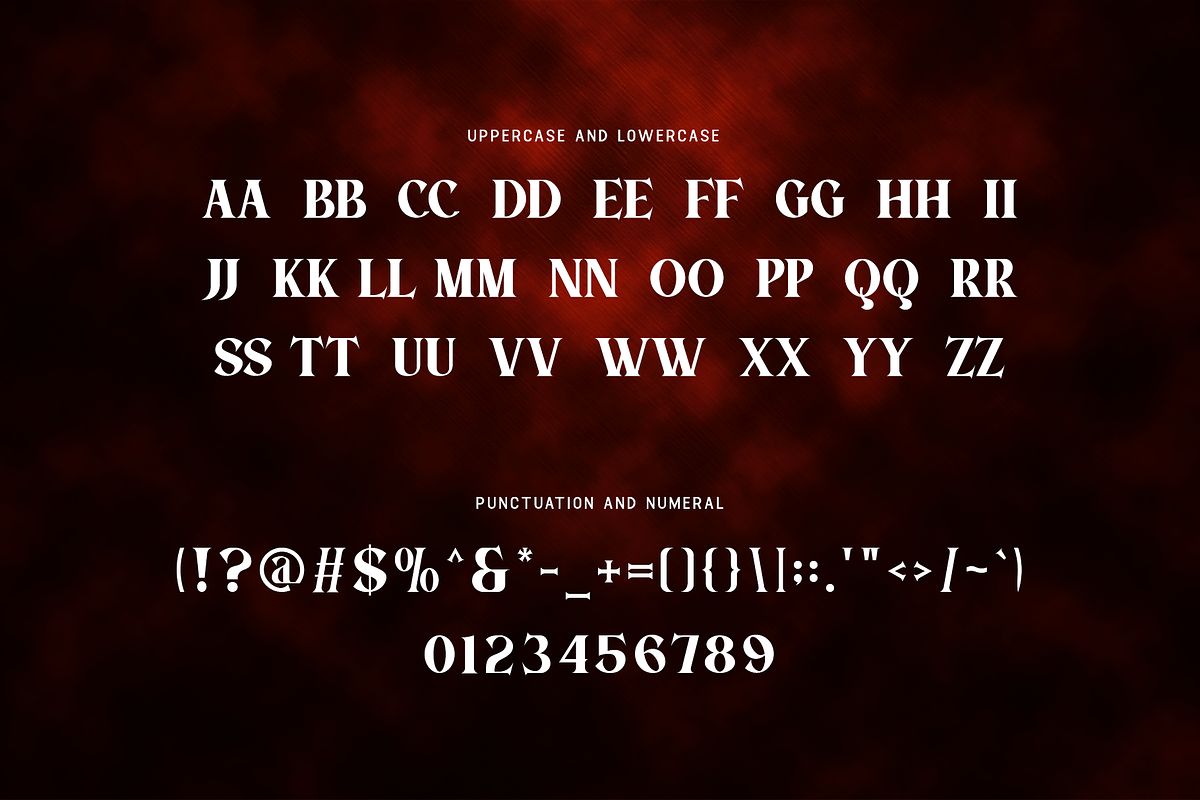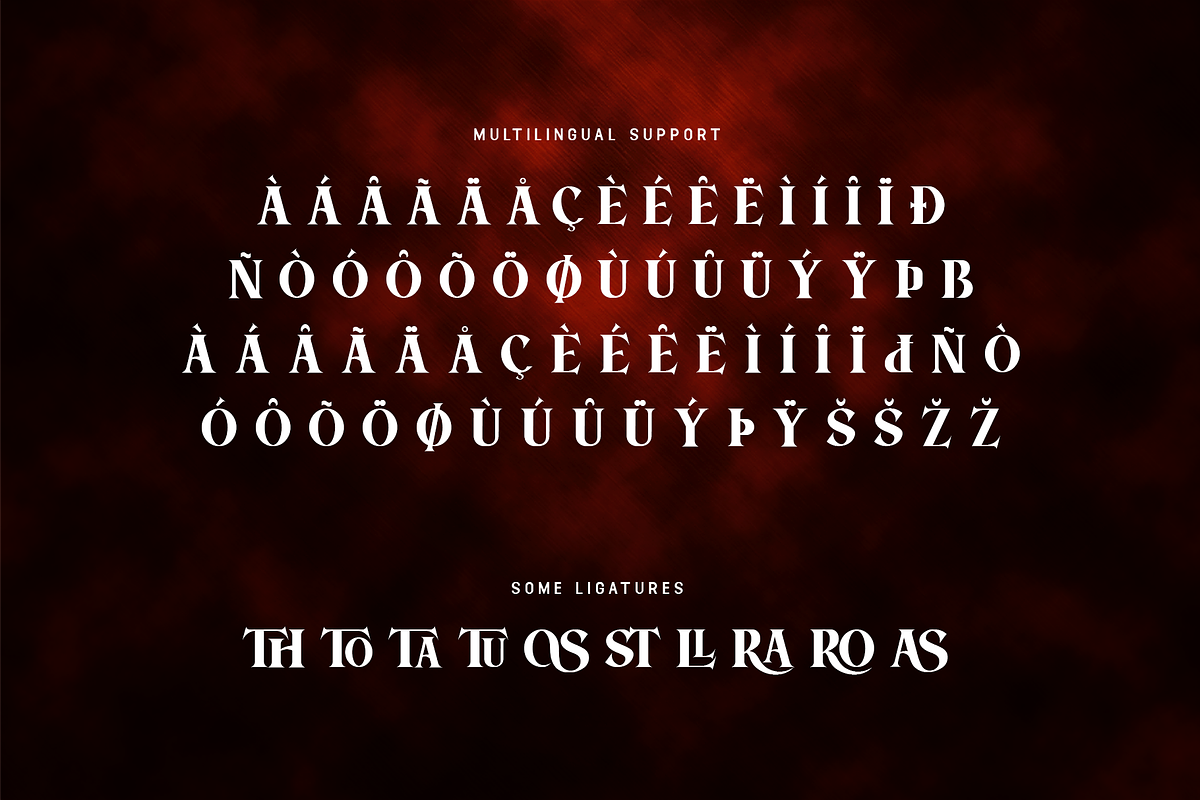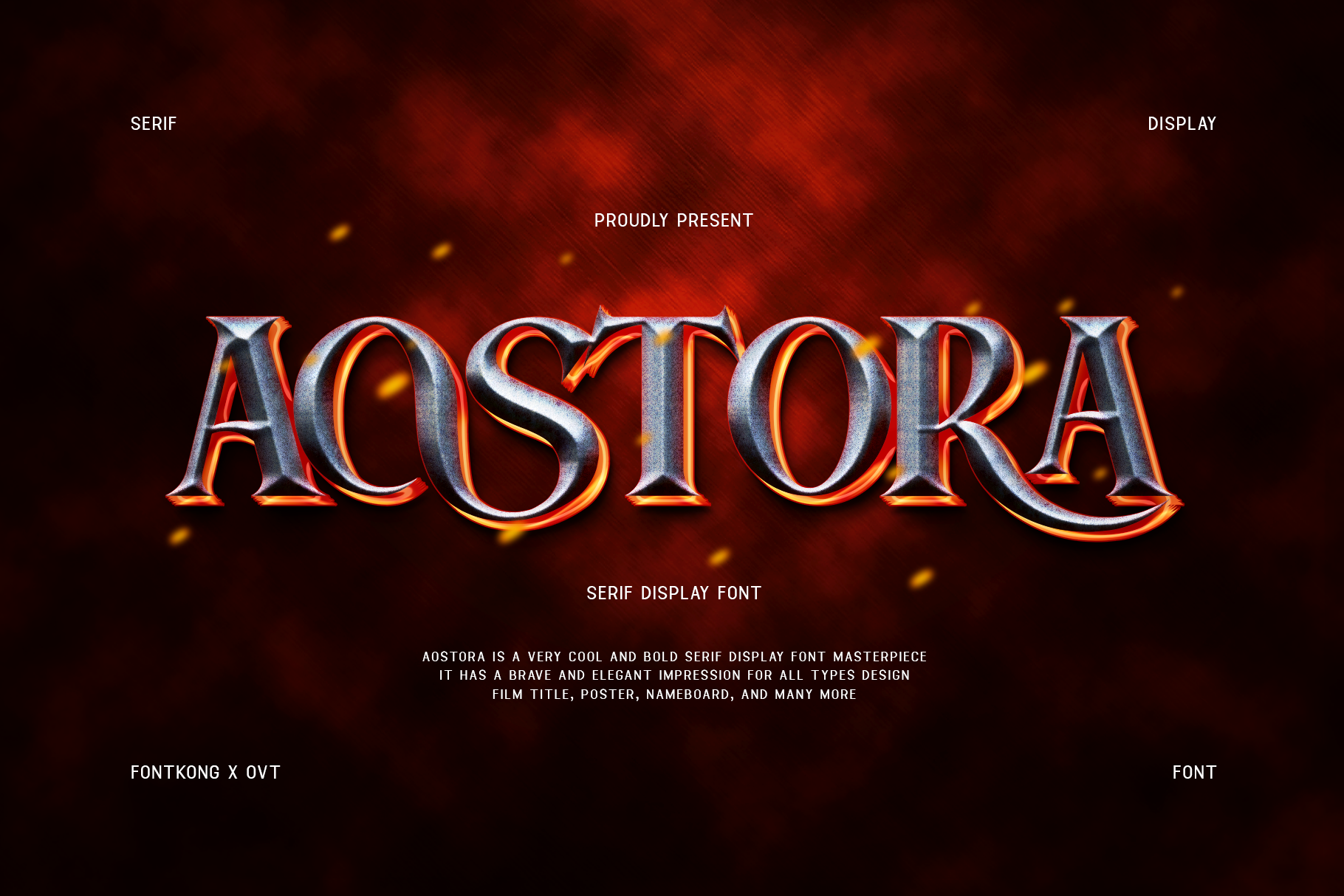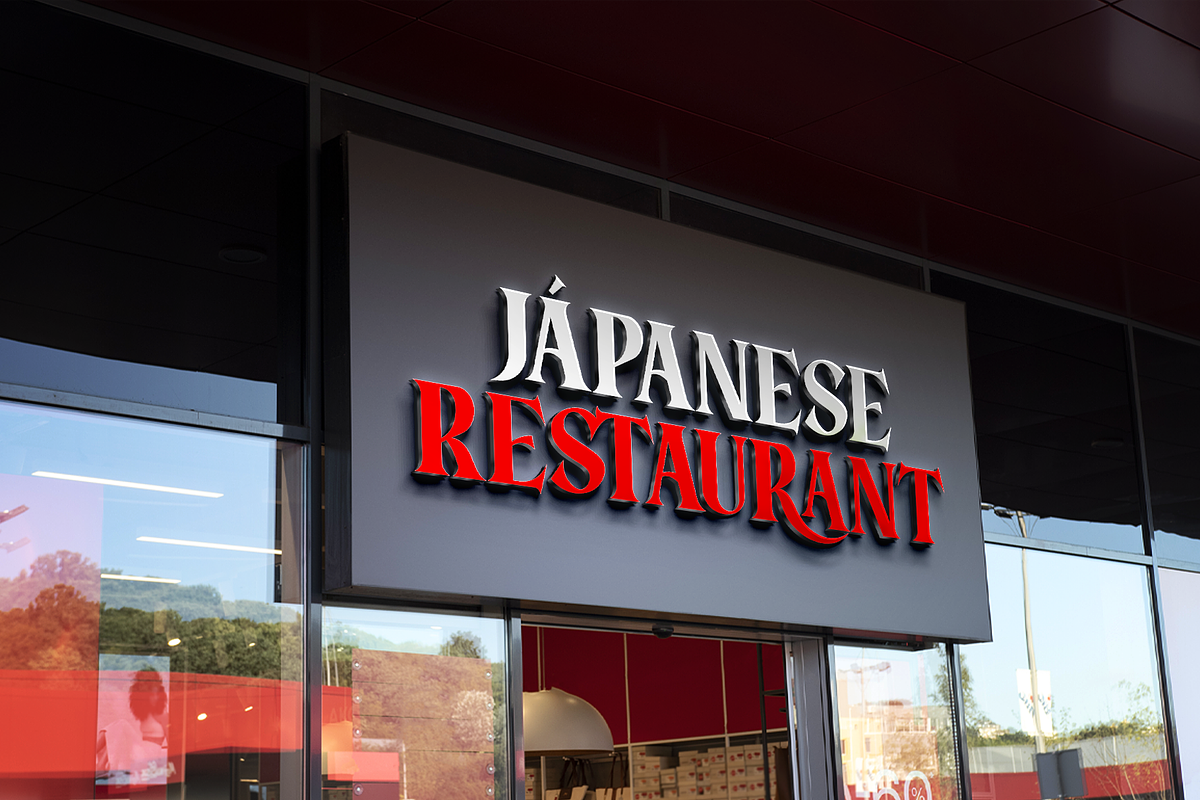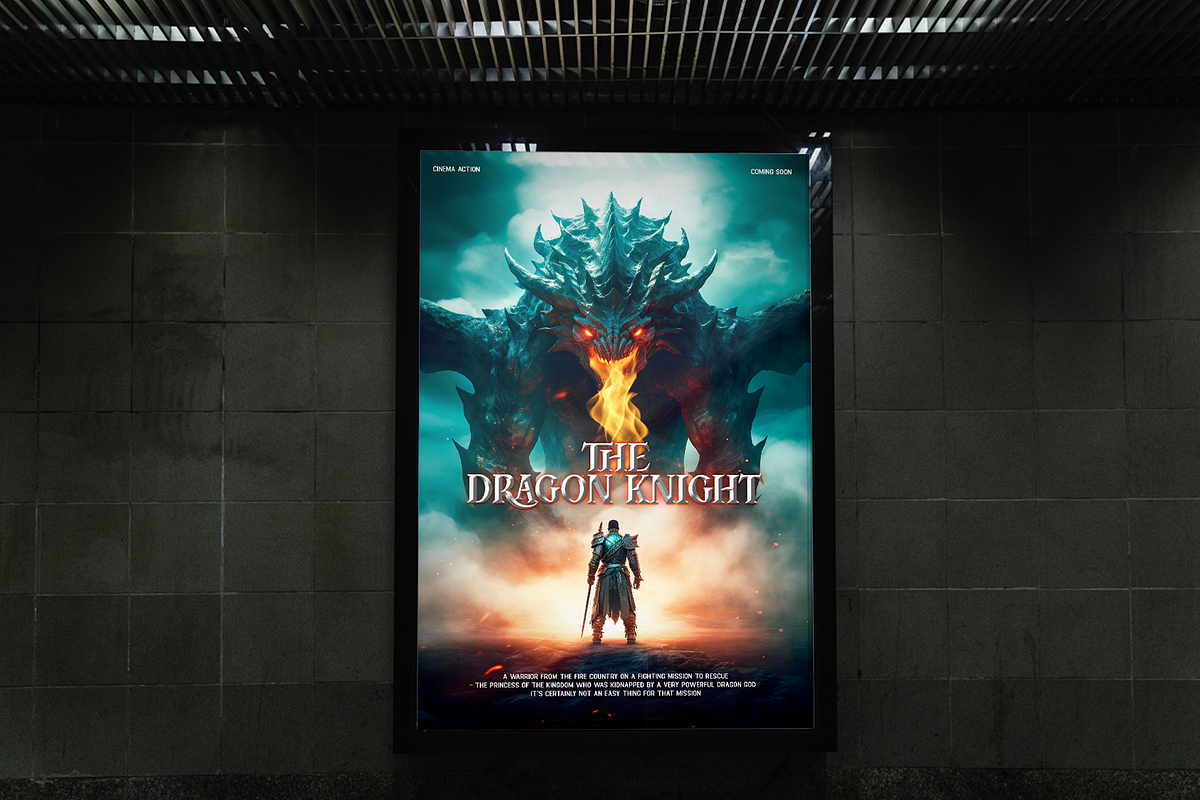
Aostora - Serif Display Font
Elevate your design projects with "Aostora," a serif display font that exudes timeless sophistication and charm. With its elegant serifs and distinguished presence, Aostora adds a touch of class to any display typography.
Crafted with meticulous attention to detail, Aostora strikes the perfect balance between classic serifs and contemporary aesthetics. Whether you're creating headlines, titles, posters, or branding materials, this font commands attention and leaves a lasting impression.
Featuring a range of weights and styles, Aostora offers versatility and adaptability for any display typography endeavor. Its refined character set includes alternates, ligatures, and swashes, allowing you to customize your typography with ease and precision.
Experience the beauty of timeless sophistication with Aostora and elevate your display typography to new heights.